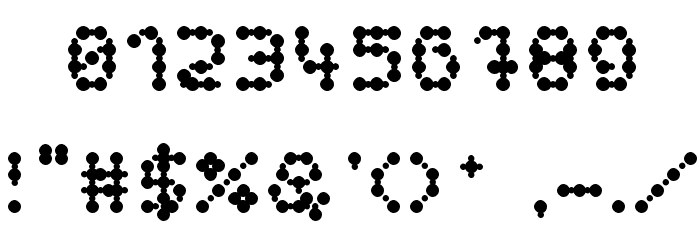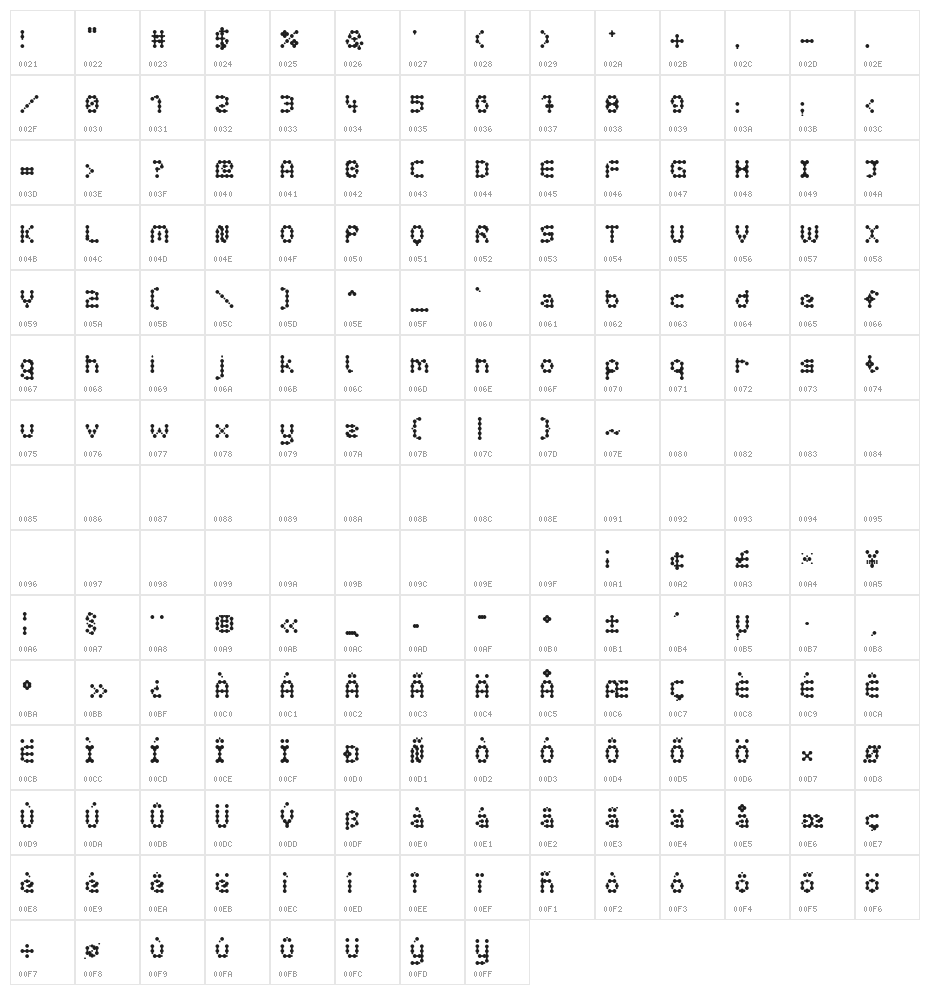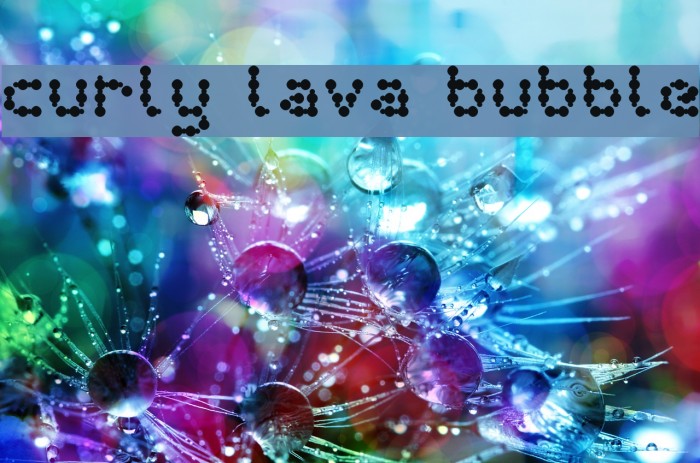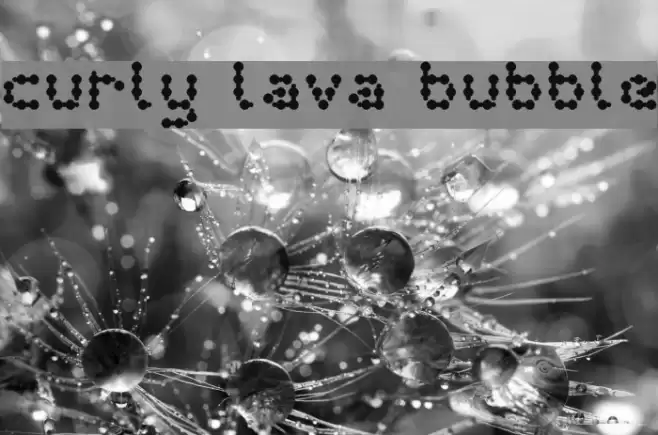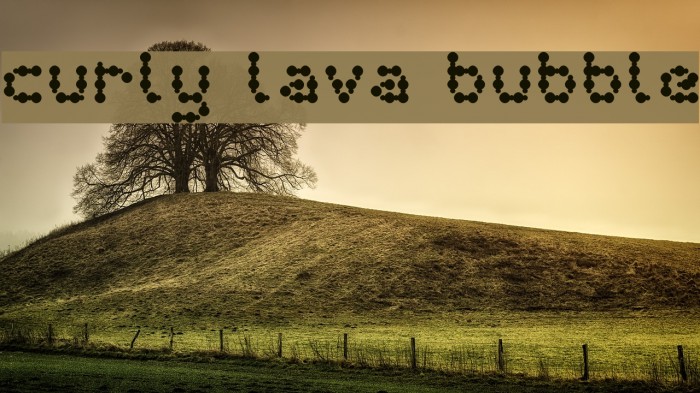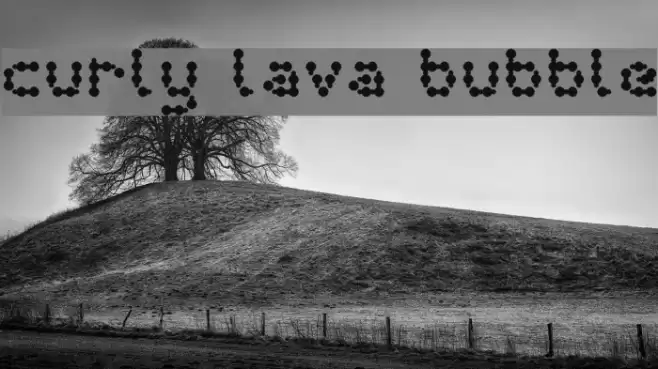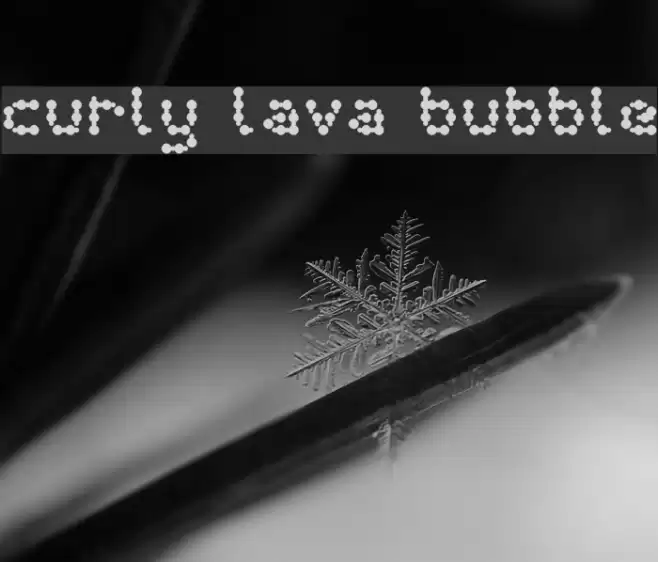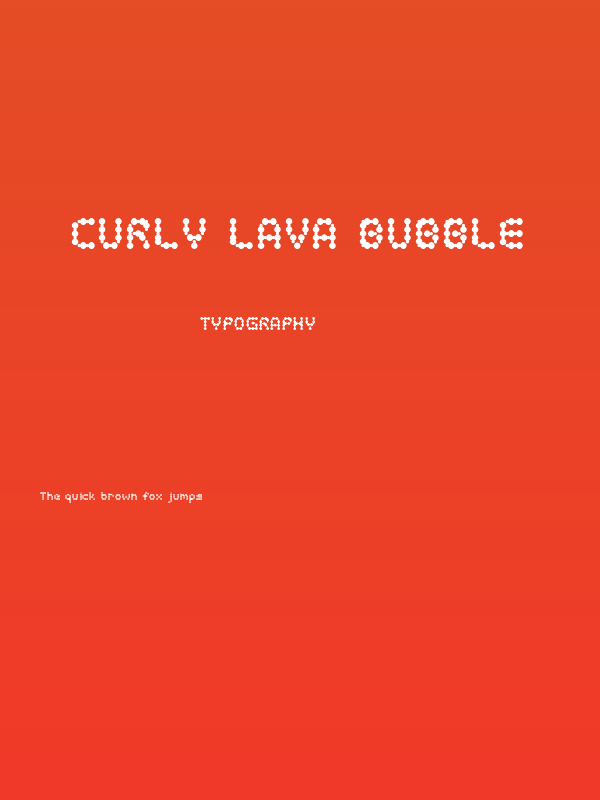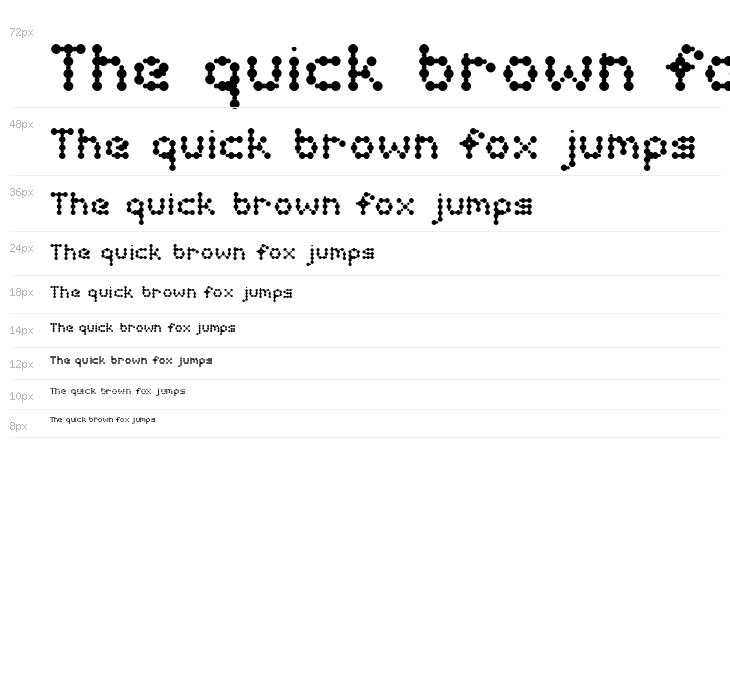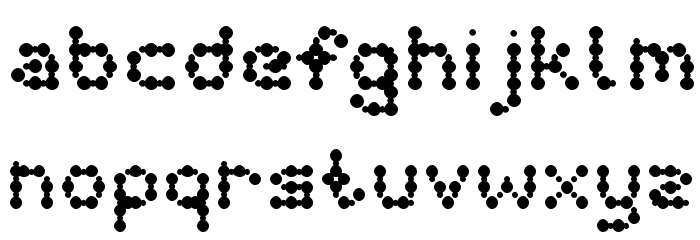
curly lava bubble Font
curly lava bubble Description
This playful and unique font is characterized by its bubbly, circular design, where each character is composed of interconnected dots resembling bubbles. The font exudes a whimsical and fun vibe, making it ideal for creative and informal projects. Its distinct style captures attention with its bold and rounded appearance, offering a sense of movement and fluidity. The font maintains consistent spacing between characters, ensuring readability while retaining its decorative nature. Its design is both modern and artistic, appealing to those looking for a font that stands out with a touch of creativity.